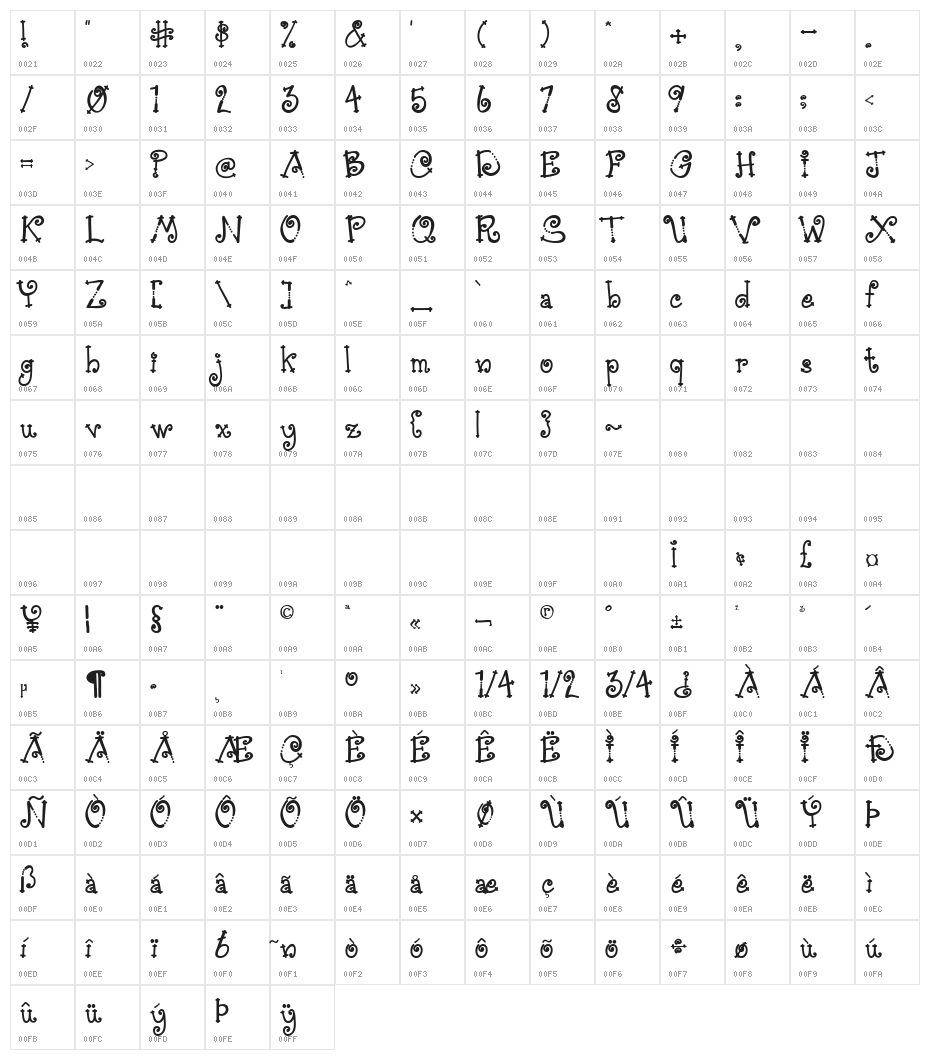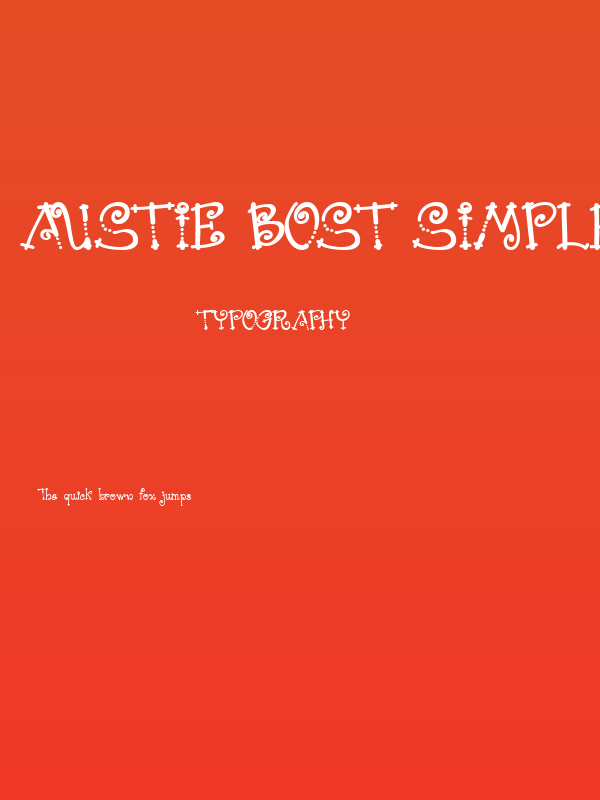
Austie Bost Simple Simon Font
Austie Bost Simple Simon Description
This whimsical and playful font features a unique design with decorative elements that resemble small dots and curls at the ends of each character. The letters are bold and rounded, giving them a friendly and approachable appearance. The uppercase and lowercase letters maintain a consistent style, with a slight variation in the embellishments that add to the font's charm. Numbers and special characters are equally adorned with these delightful details, making the font suitable for creative and fun projects. Its distinctive style is eye-catching and perfect for capturing attention.
Overall StyleWhimsical
Use CaseHeadlines, Logos, Creative projects
Proposed ProjectsIdeal for children's books, playful invitations, greeting cards, and creative branding.